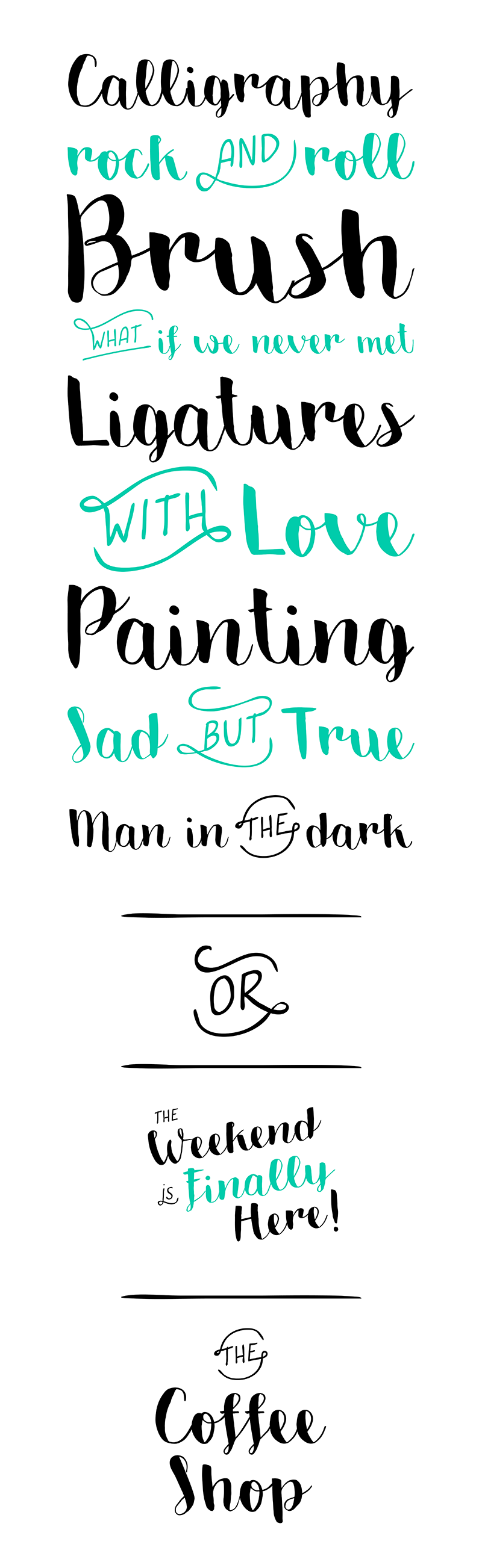
Emily The Brush is a Brush Handwriting Display Font created by the driving passion of our designers for Lettering and Handmade Font. Its look, inspired by traditional calligraphy, give an informal feel thanks to the addition of originals shapes. The Character Set includes two Alternative Glyph sets, which are accessible via keyboard using the Opentype function, just activate the “Alternate” function of the software and follow the given instructions. The handmade glyph where drawn with a Talens Brush Pen 700, its unconventional shapes made Emily The Brush suitable for advertisings, poster, greetings cards and more. Emily The Brush Family: Emily The Brush Regular FULL version available here > https://www.monofonts.com/products/emily-the-brush For commercial use, you can purchase the font at: https://www.monofonts.com/products/emily-the-brush For more info on our license: http://www.monofonts.com/license |